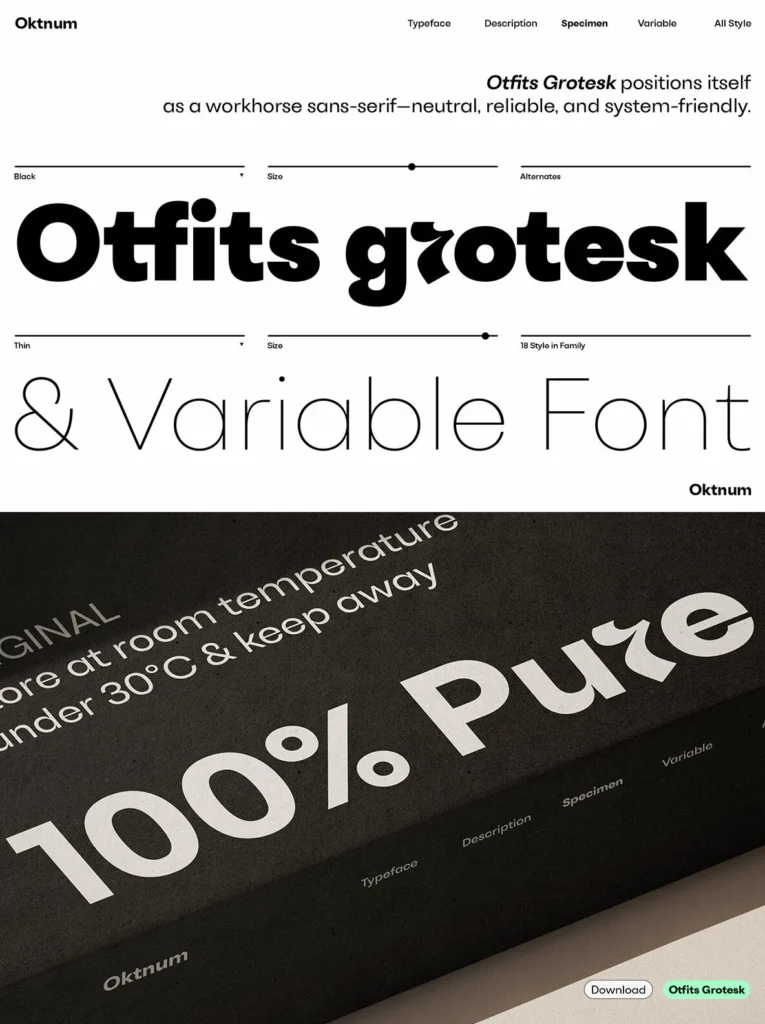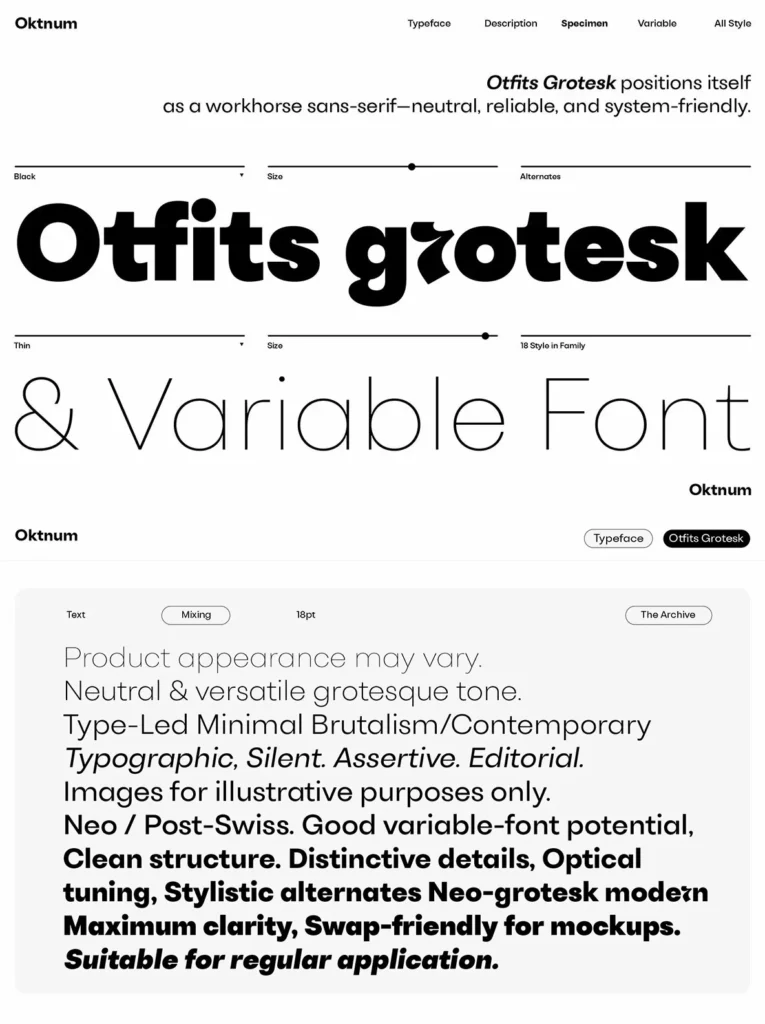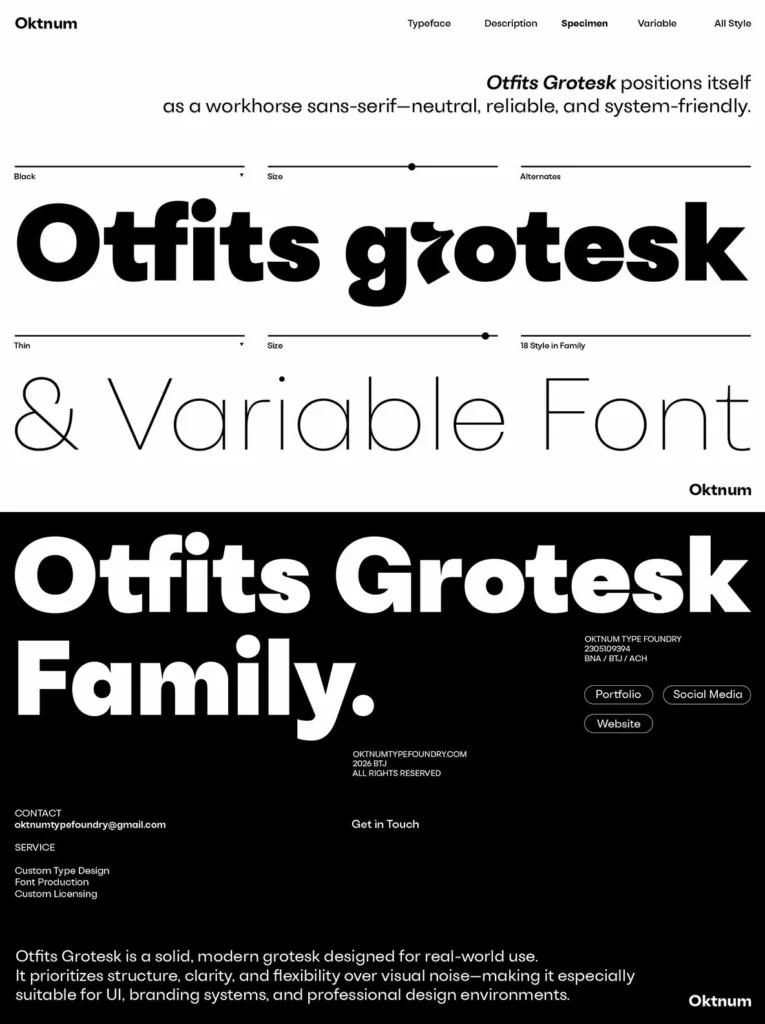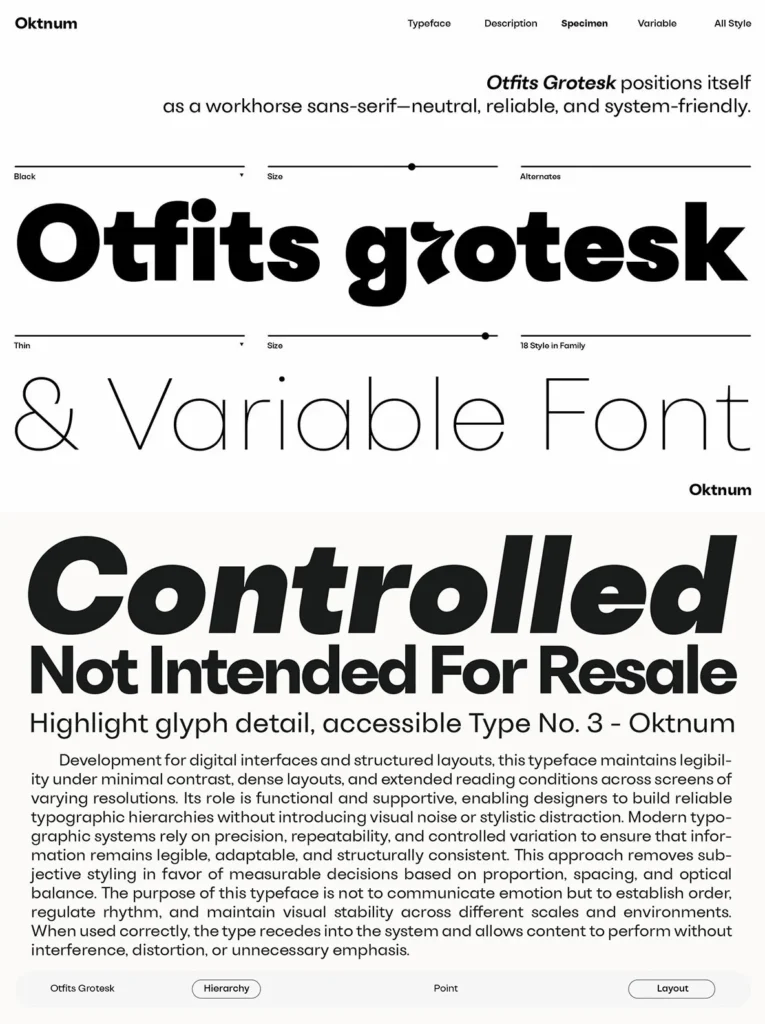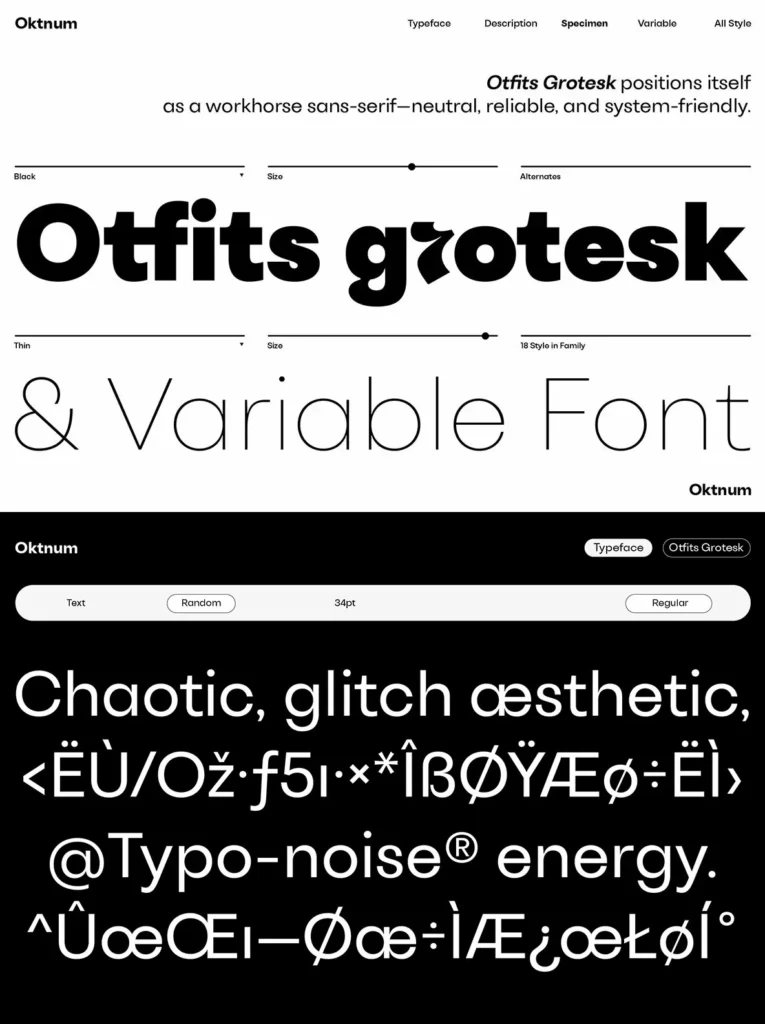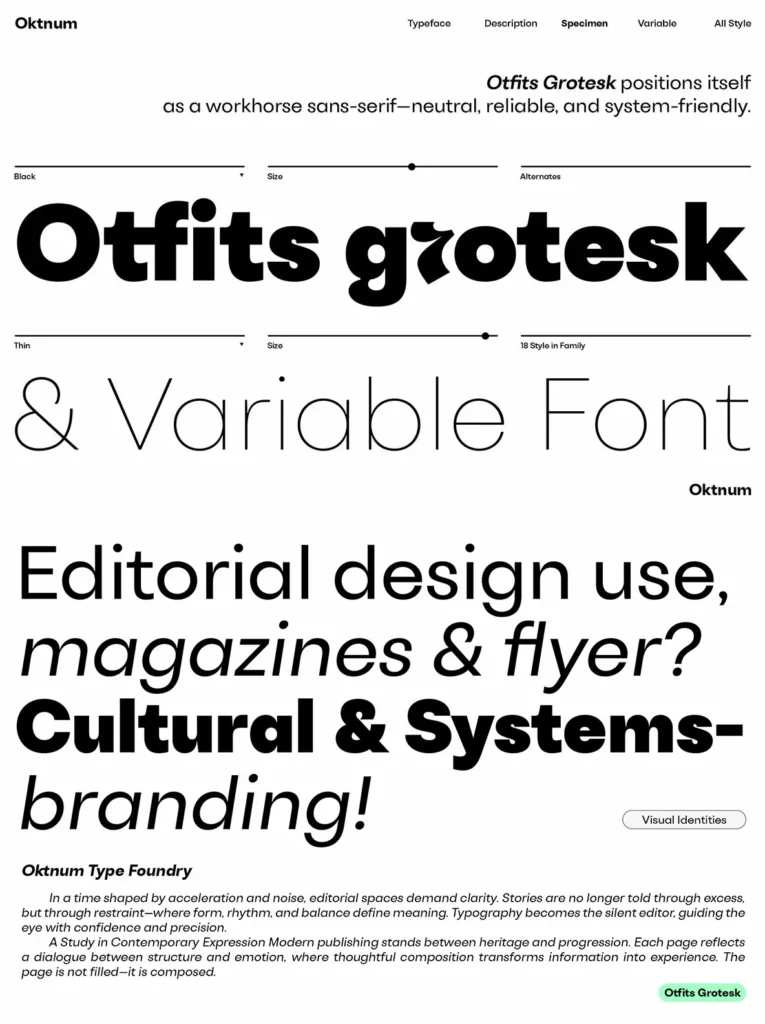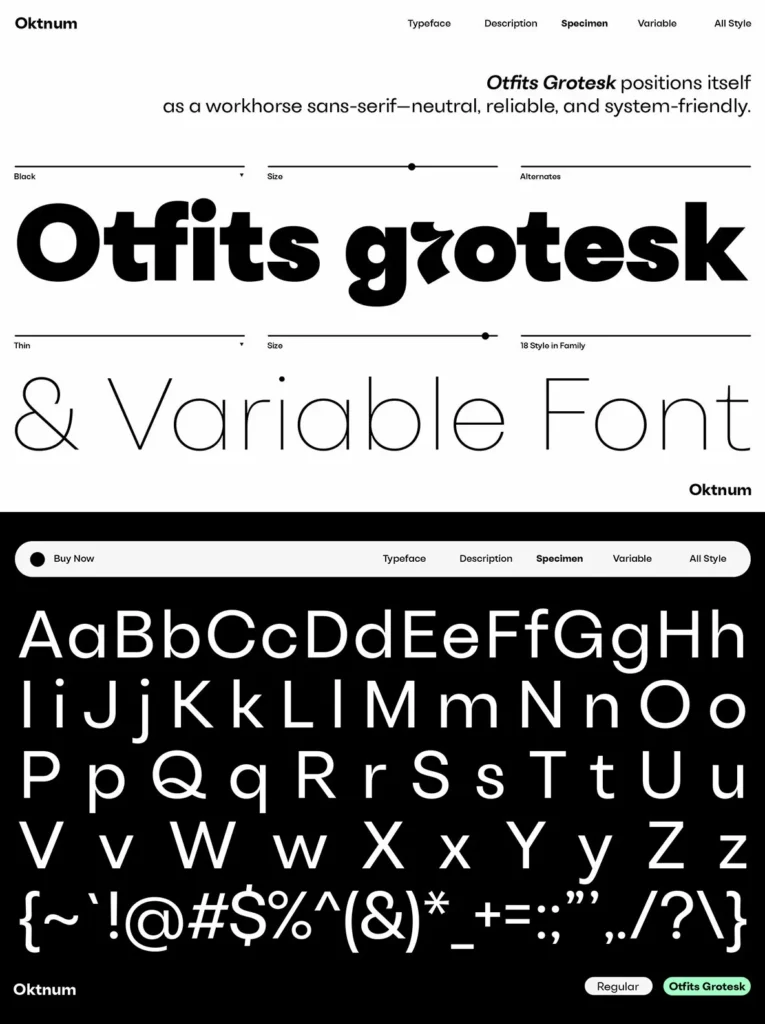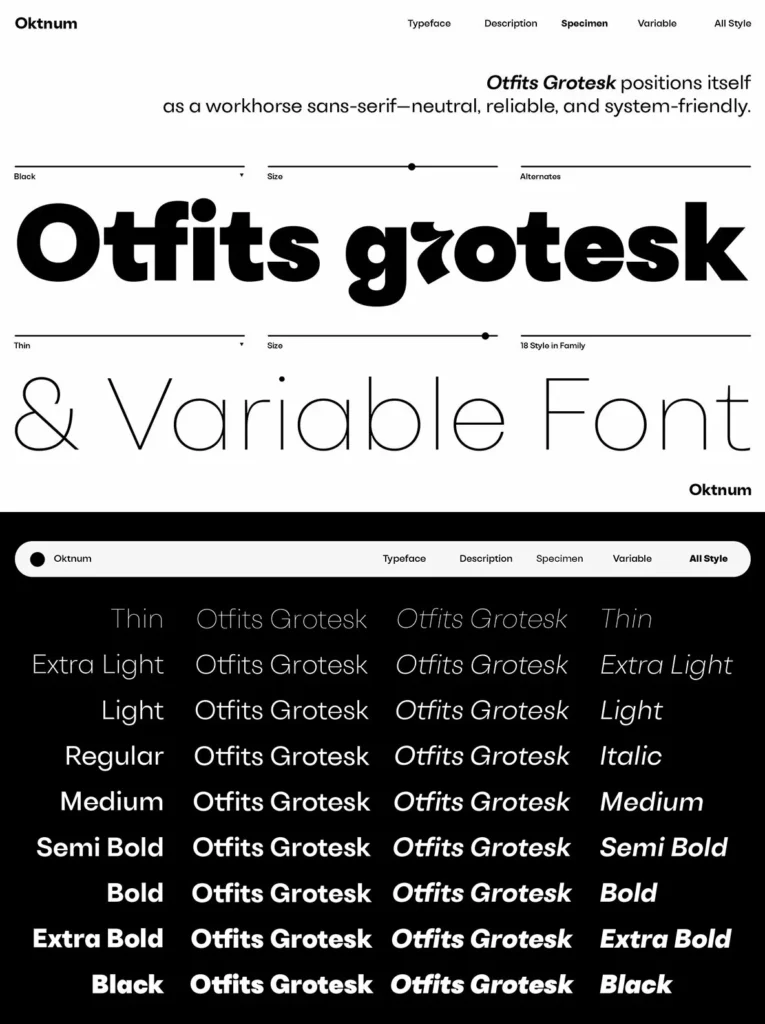
Otfits Grotesk — Geometry with Humanist Poise
Otfits Grotesk is a contemporary geo-grotesk sans-serif typeface made for clarity, versatility, and modern usability. Its neutral yet confident structure gives designers a dependable typographic voice across many settings. Clean geometric logic defines the family, while subtle humanist nuances keep the forms approachable and controlled.
The letterforms use balanced proportions, consistent stroke modulation, and refined terminals. This creates a calm, stable rhythm that works well in both display and text settings. As a variable font, Otfits Grotesk gives flexible weight control, allowing precise hierarchy and expression within a single typographic system.
Otfits Grotesk suits branding systems, digital interfaces, editorial layouts, and contemporary visual identities. Its functional character and understated personality deliver a modern grotesque aesthetic that feels efficient, adaptable, and timeless.